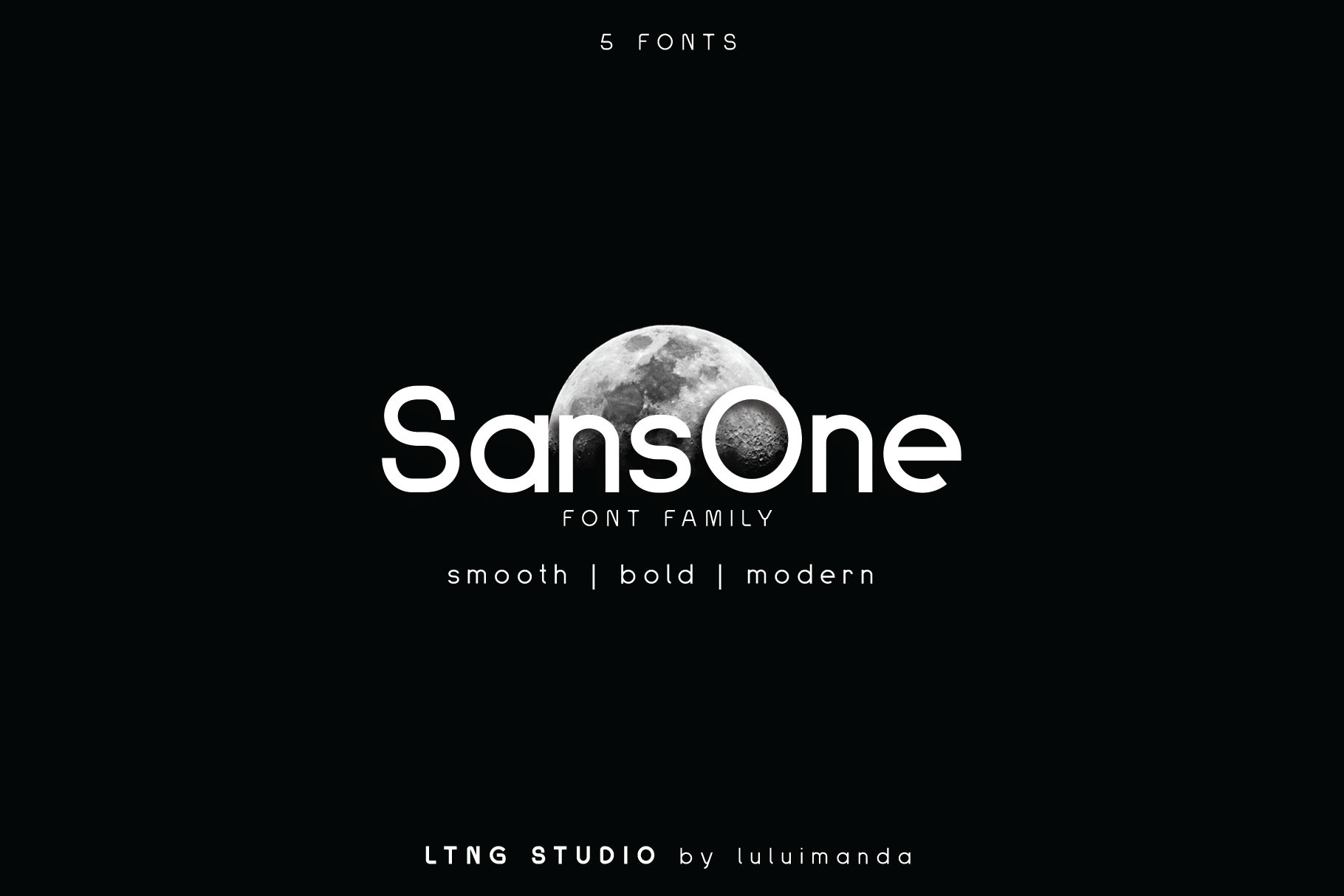
SansOne Font Family
Introducing SansOne… A Smooth, bold and modern sans serif font. SansOne is sans serif typeface, with smooth shape, bold and modern look, is perfect for any kind of design such us magazine, poster, branding, logo, & packaging WHATS INCLUDED :